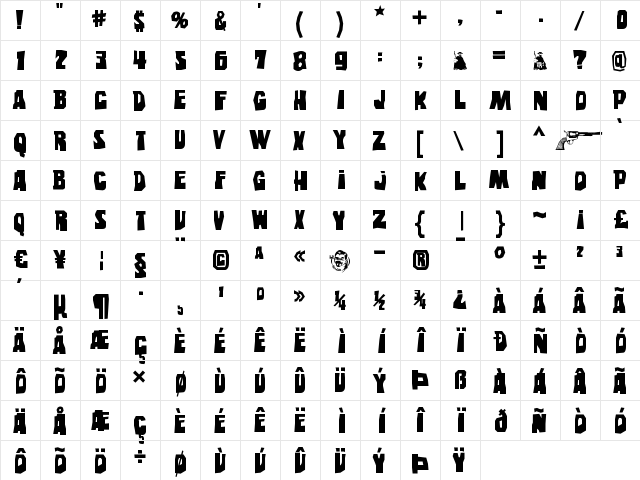
Eastwood Regular
Design Context for Eastwood Typeface
Eastwood taps into classic Western woodtype traditions — bold, characterful, and impossible to ignore.
Perfect for barbecue restaurants, country music branding, vintage poster design, and rustic packaging.
Font Pairing: Combine Eastwood with a simple slab or neutral sans — period-accurate companions reinforce the vintage feel without competing for attention.
Pro Tip: Pair Eastwood with aged textures or distressed backgrounds to amplify its vintage personality.